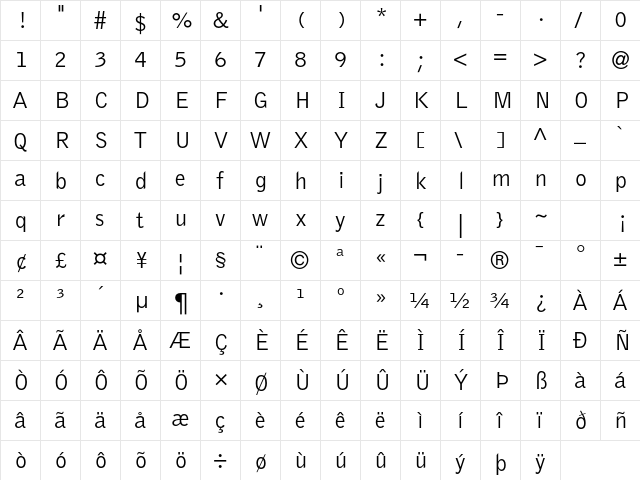
Bell Gothic Std Light
| Designer | Chauncey H. Griffith |
Design Context for Bell Gothic Std Typeface
Bell Gothic Std has the quiet confidence of well-executed sans-serif typography: versatile, unobtrusive, and dependable at any size. The delicate stroke weight brings airiness and refinement to layouts.
A natural fit for high-end product packaging, luxury brand identities, and refined web typography.
Font Pairing: Pair Bell Gothic Std with a medium or bold serif for headlines — the weight contrast creates an elegant, high-end feel.
Pro Tip: Use Bell Gothic Std with generous tracking and line-height for the most luxurious effect — light sans-serifs reward spacious, considered layouts.